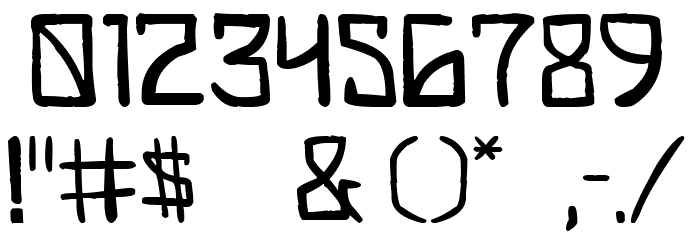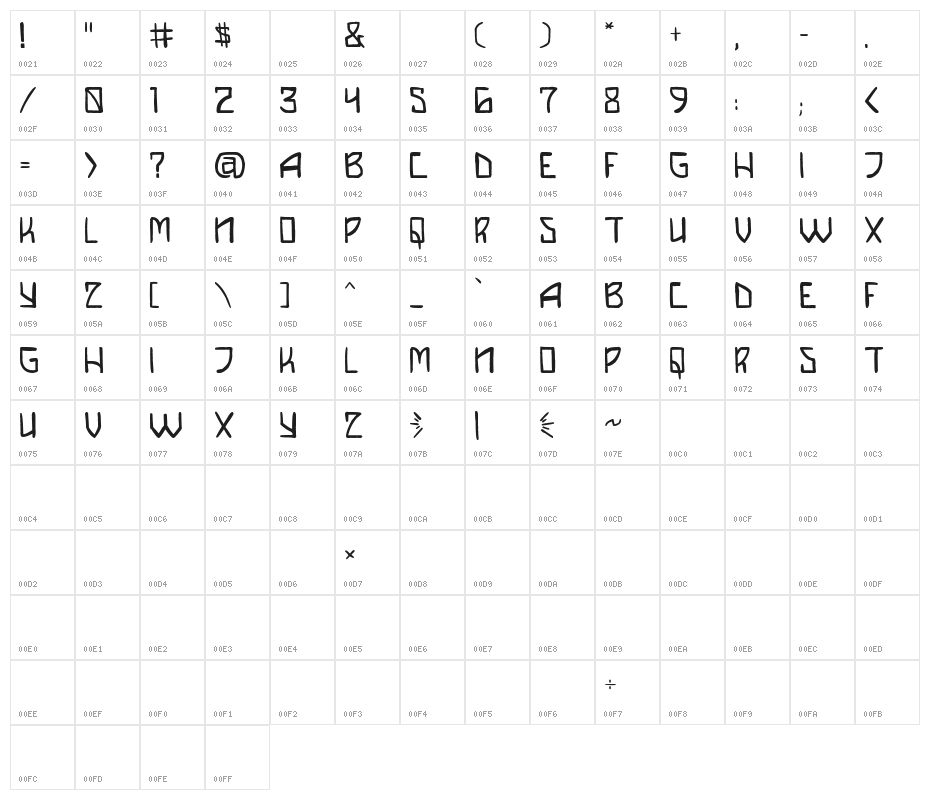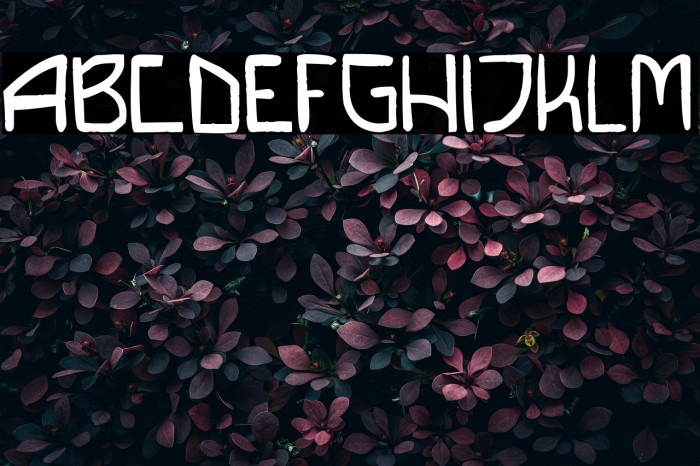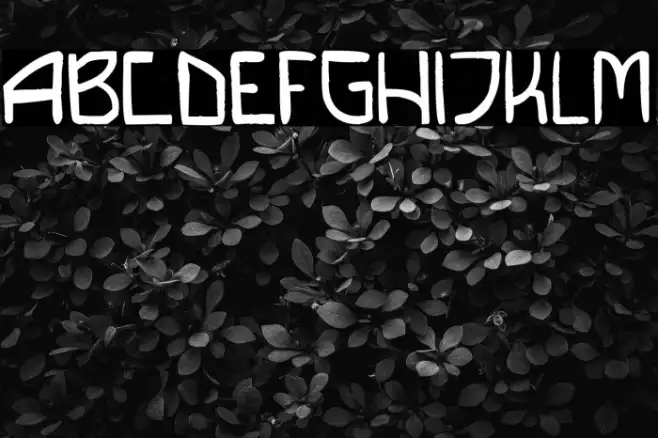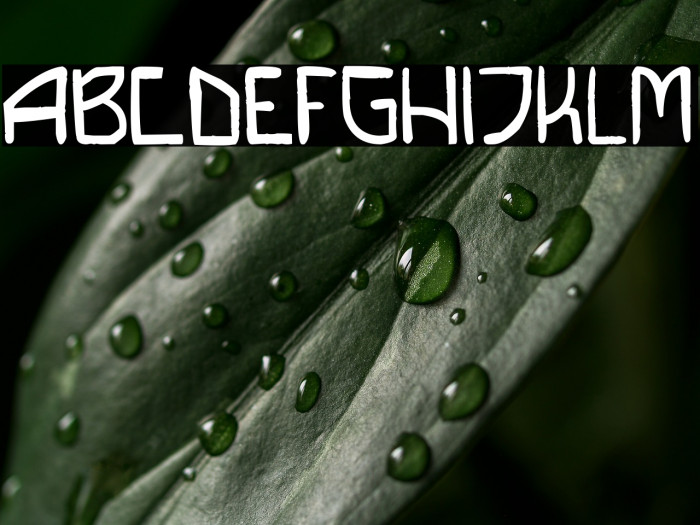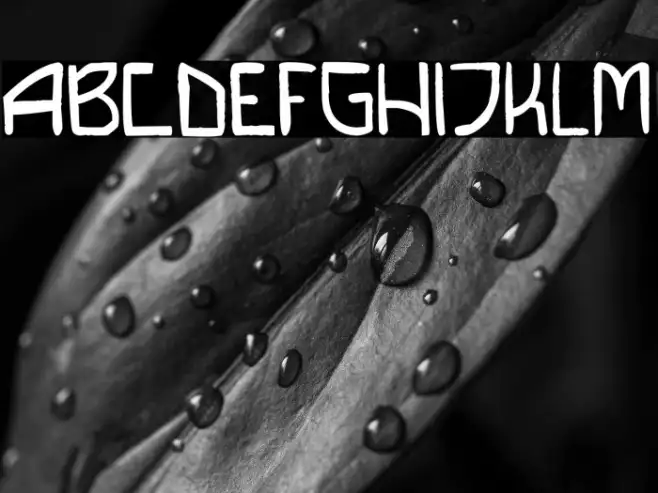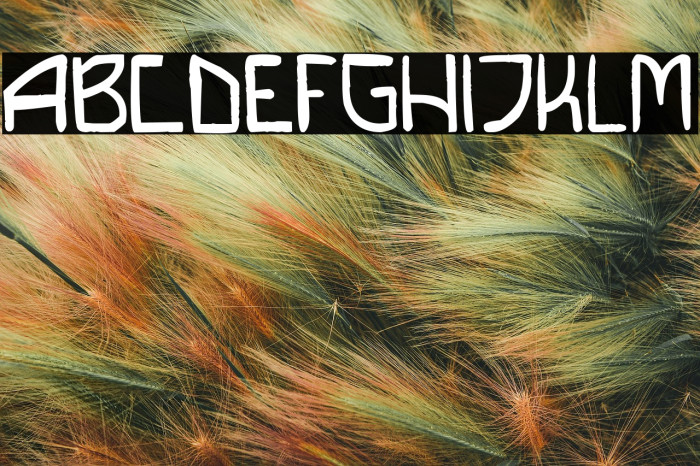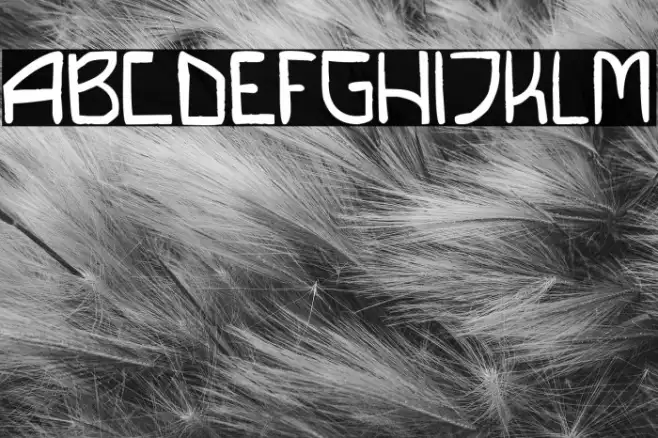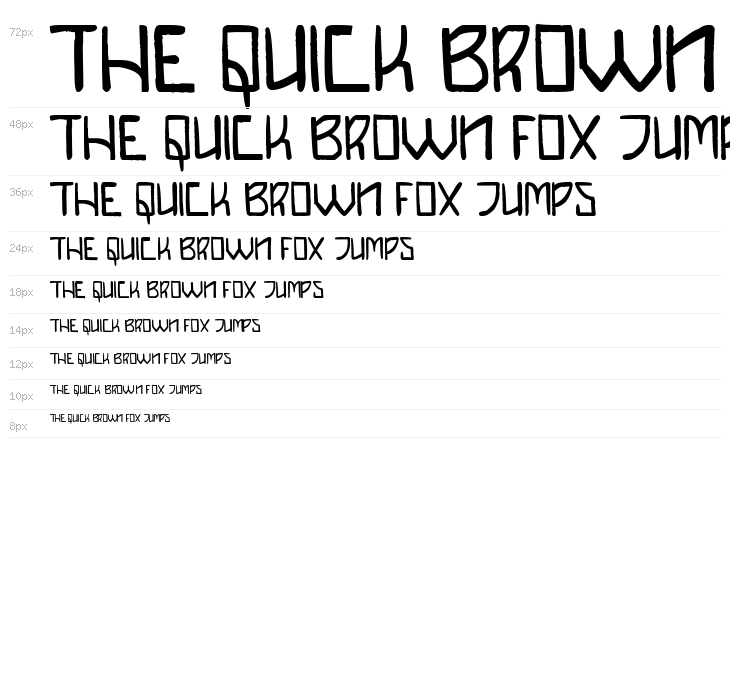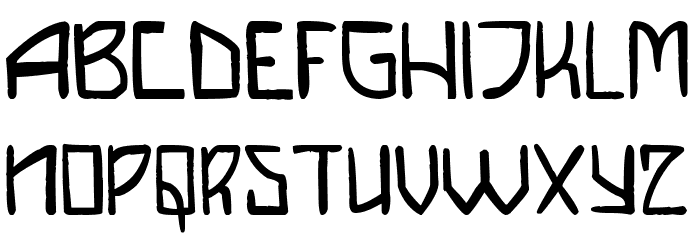
DIY Saiba Font
DIY Saiba Description
This font features a bold, hand-drawn style with a distinctly urban and edgy feel. The characters are slightly irregular, giving it a raw and authentic appearance. The strokes are thick and consistent, with a slight tapering that adds a dynamic quality to the letters. The uppercase and lowercase letters maintain a cohesive look, while the numerals and special characters complement the overall design. This font's unique aesthetic makes it suitable for projects that require a touch of individuality and creativity.
| Overall Style | Urban, Edgy, Creative |
| Use Case | Logos, Posters, Album Covers |
| Proposed Projects | Ideal for street art designs, music album covers, posters, and creative branding projects. |